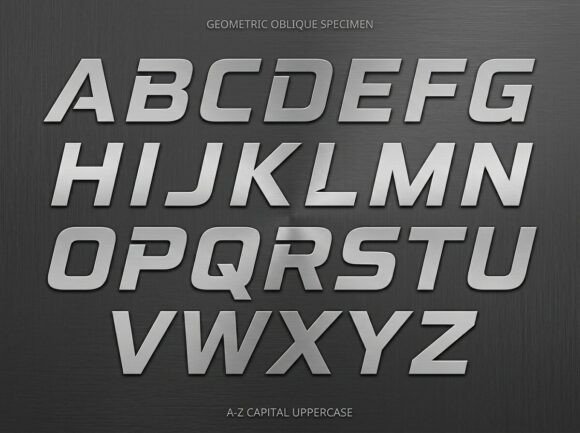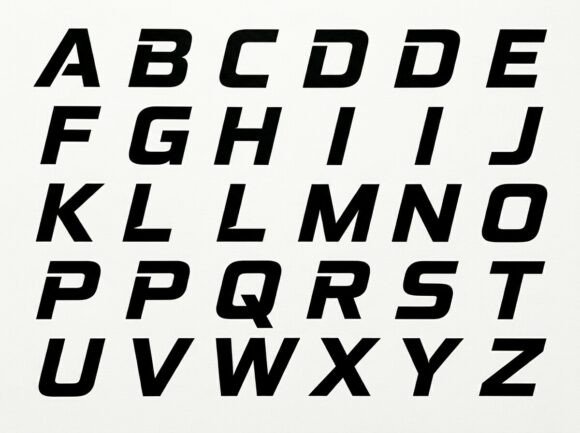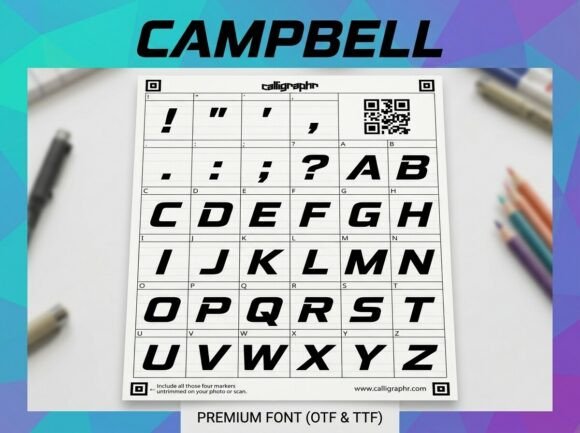
Introducing Campbell Font: A Stunning Decorative Display Font
Are you tired of using the same old fonts for your designs? Do you want to add a touch of uniqueness and creativity to your projects? Look no further than Campbell Font, a stunning decorative display font designed to be the center of attention. With its unique artistic elements and strong visual personality, this font is perfect for creators who want to break away from the ordinary.
What Makes Campbell Font Special?
Campbell Font is a versatile font that is perfect for bold headlines, artistic logos, and creative packaging. Its unique design elements and strong visual personality make it stand out from other fonts, giving your designs a professional and polished finish. Whether you’re a designer, craftsperson, or DIY enthusiast, Campbell Font is the perfect choice for anyone looking to add a touch of creativity to their projects.
Important Note: All-Caps Display Typeface
Before purchasing Campbell Font, it’s essential to note that it’s an ALL-CAPS (Uppercase Only) display typeface. This means it does not include lowercase letters. It’s specifically designed for high-impact headlines, logos, and decorative initials where every letter is a work of art. So, if you’re looking for a font for body text or other long-form content, Campbell Font may not be the best choice. However, if you want to create eye-catching headlines, logos, or titles, Campbell Font is the perfect choice.
Use Cases for Campbell Font
Campbell Font is perfect for a variety of design projects, including:
- Headlines and Titles: Use Campbell Font to create eye-catching headlines and titles that grab attention.
- Logos and Branding: Campbell Font is perfect for creating unique and memorable logos that stand out from the crowd.
- Packaging and Product Design: Add a touch of creativity to your packaging and product design with Campbell Font.
- Signage and Displays: Use Campbell Font to create eye-catching signage and displays that grab attention.
Tips for Using Campbell Font
Here are some tips for getting the most out of Campbell Font:
- Use it sparingly: Campbell Font is a bold and attention-grabbing font, so use it sparingly to avoid overwhelming your design.
- Pair it with a neutral font: Pair Campbell Font with a neutral font to create contrast and visual interest.
- Experiment with colors and textures: Campbell Font looks great with bold colors and textures, so don’t be afraid to experiment.
Campbell Font is a stunning decorative display font that’s perfect for creators who want to break away from the ordinary. With its unique artistic elements and strong visual personality, this font is perfect for bold headlines, artistic logos, and creative packaging. Whether you’re a designer, craftsperson, or DIY enthusiast, Campbell Font is the perfect choice for anyone looking to add a touch of creativity to their projects.